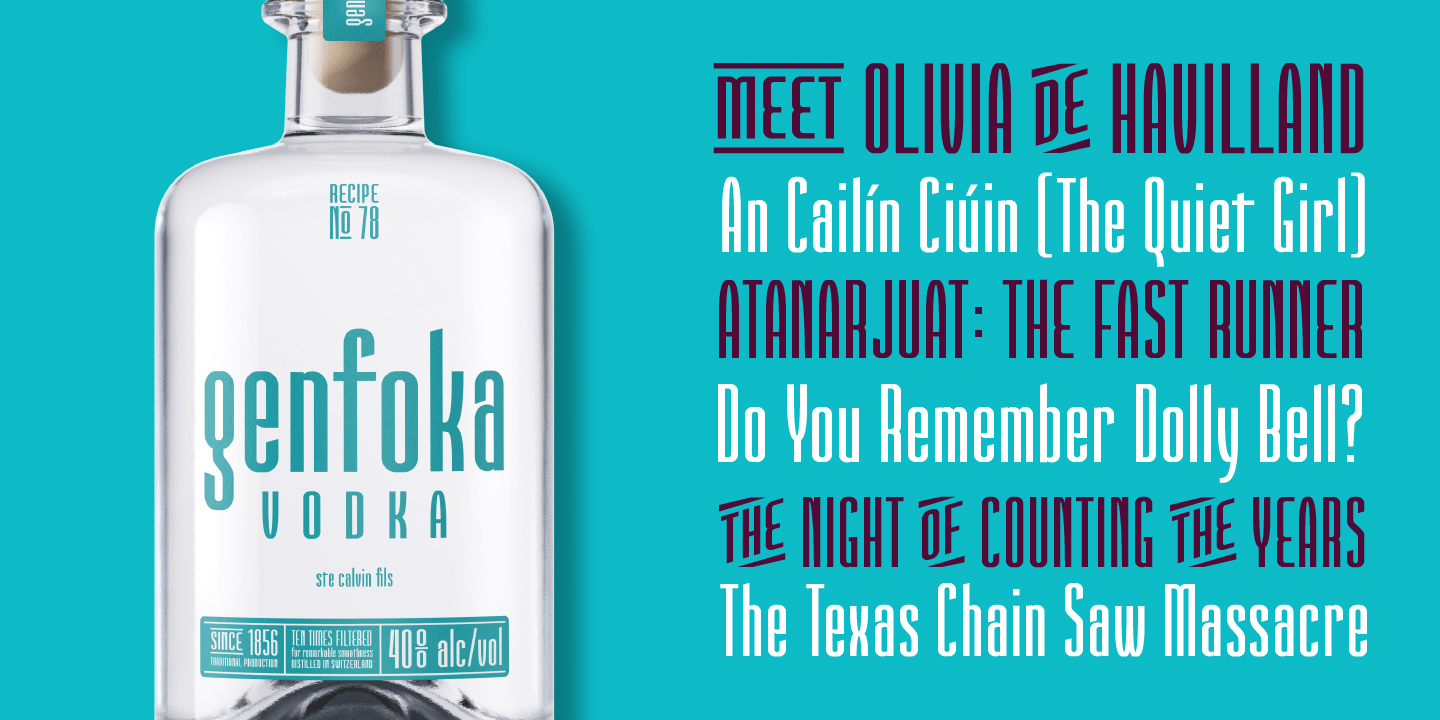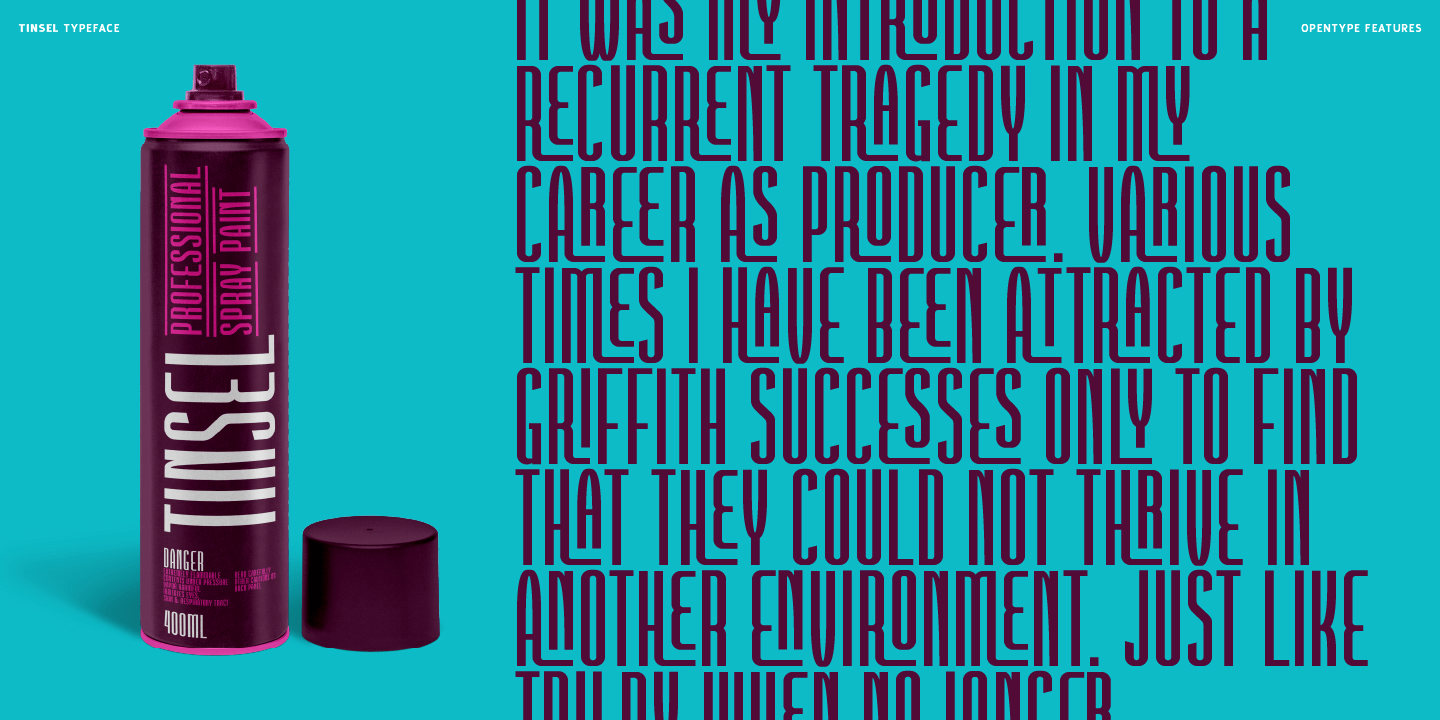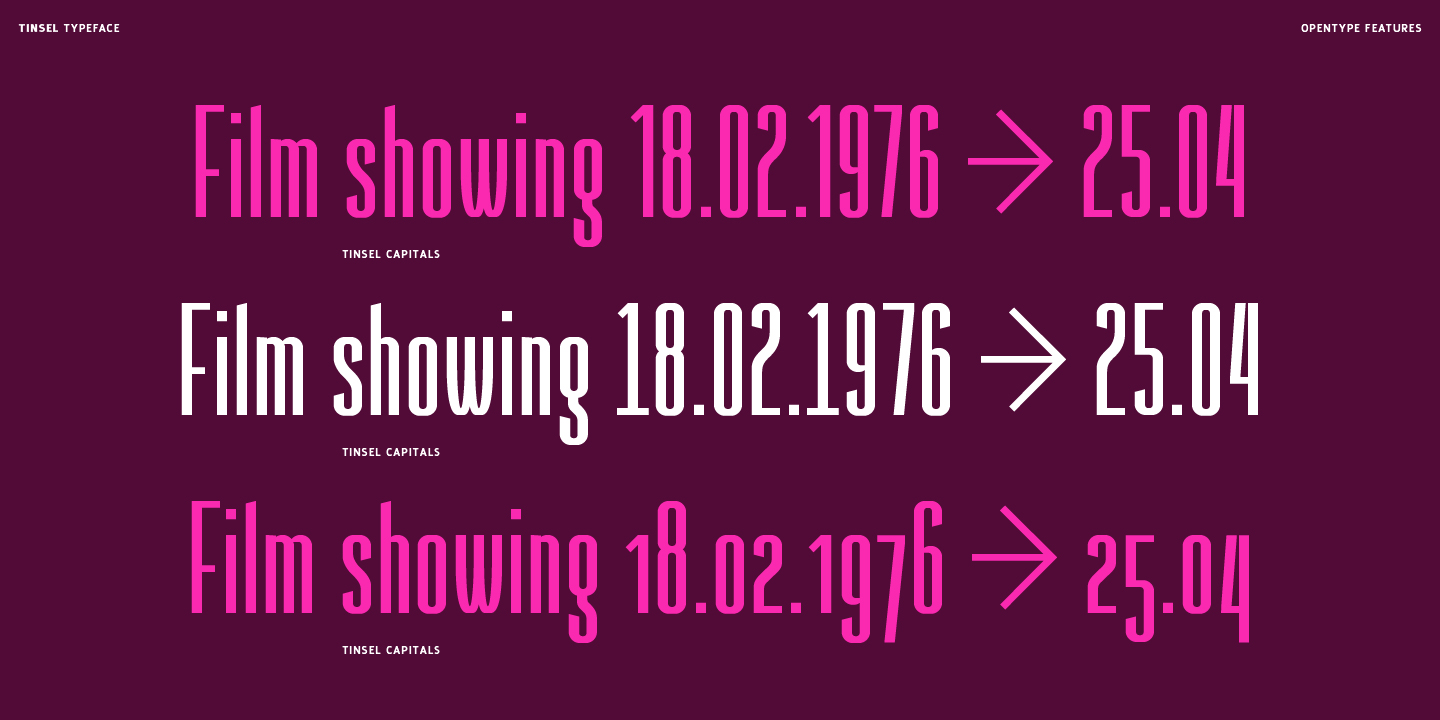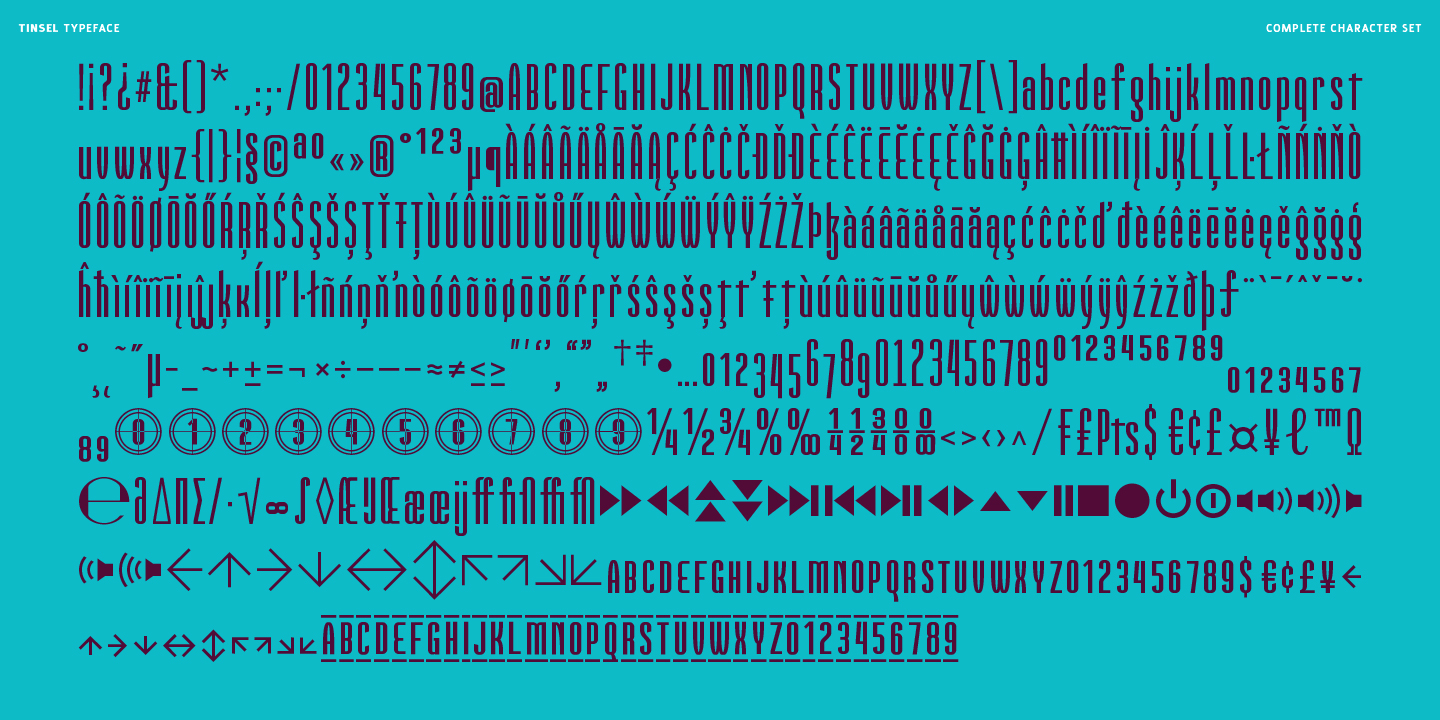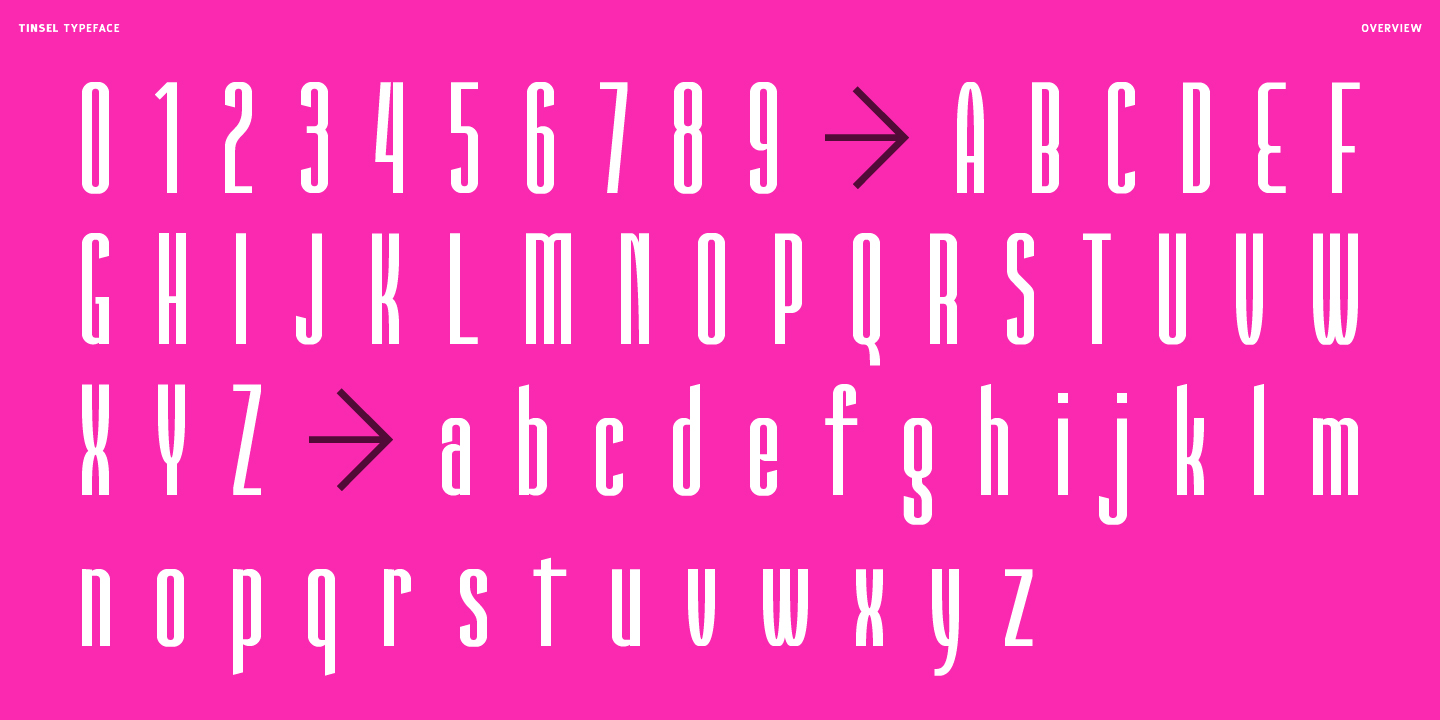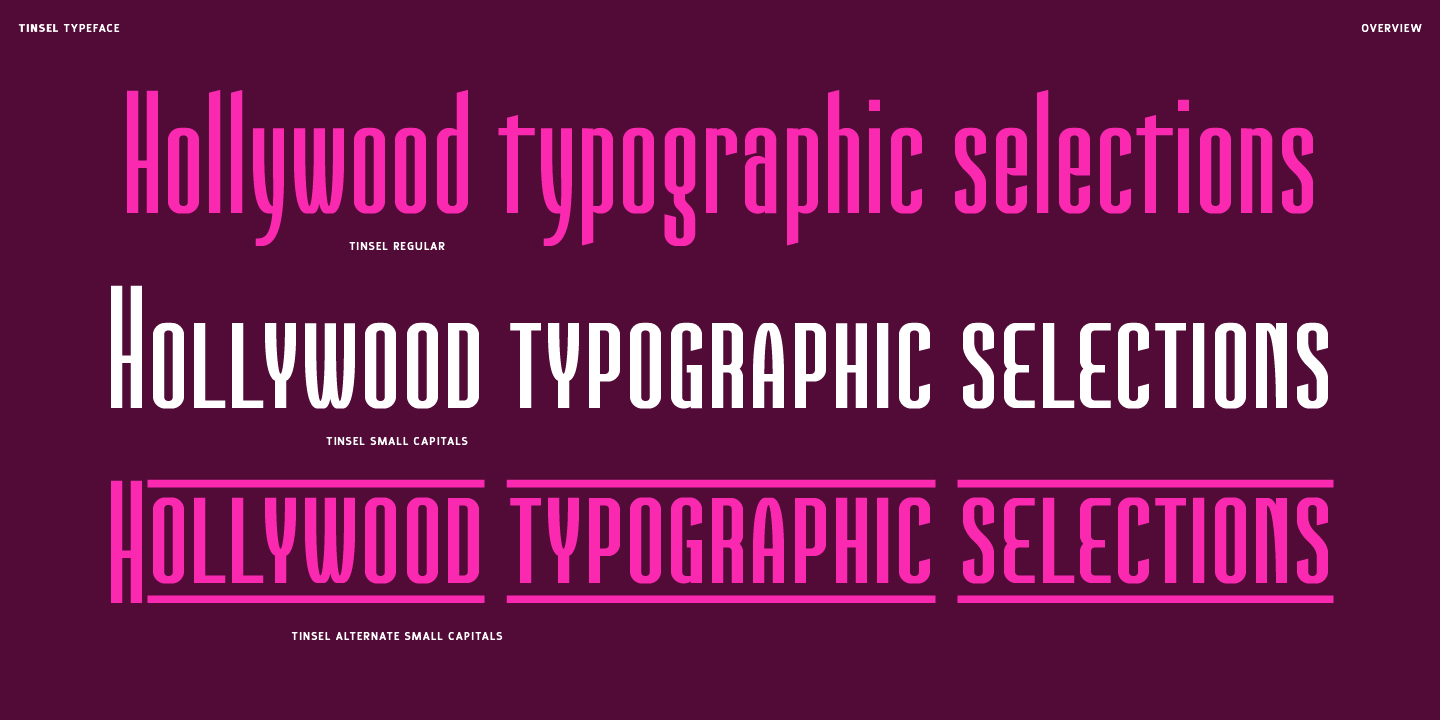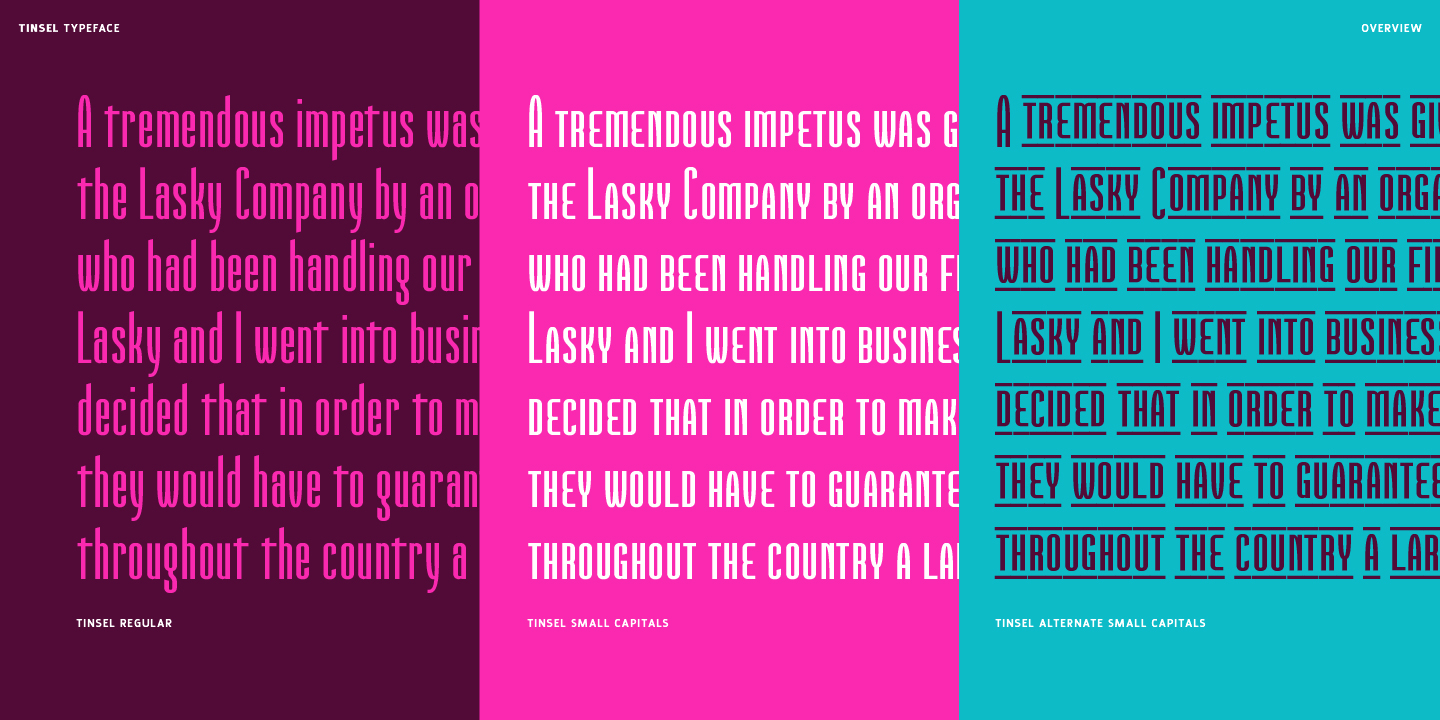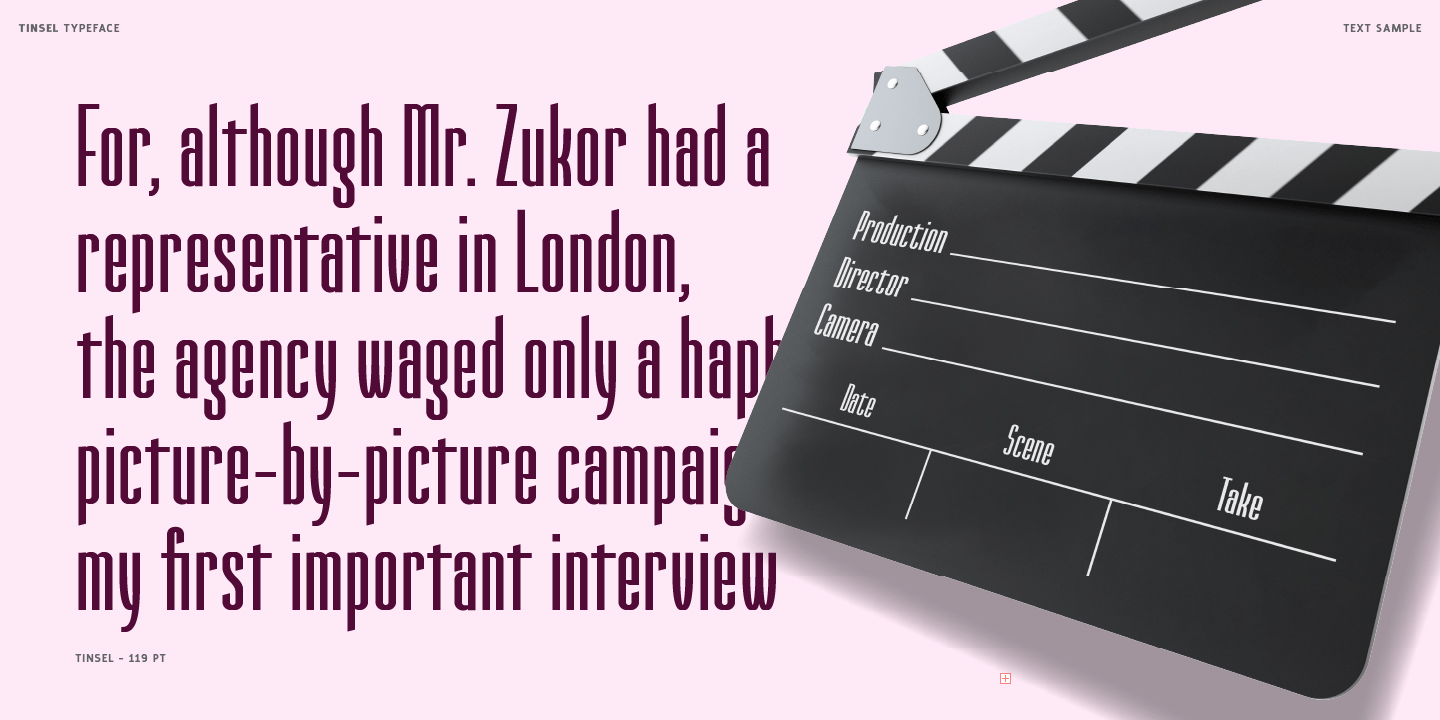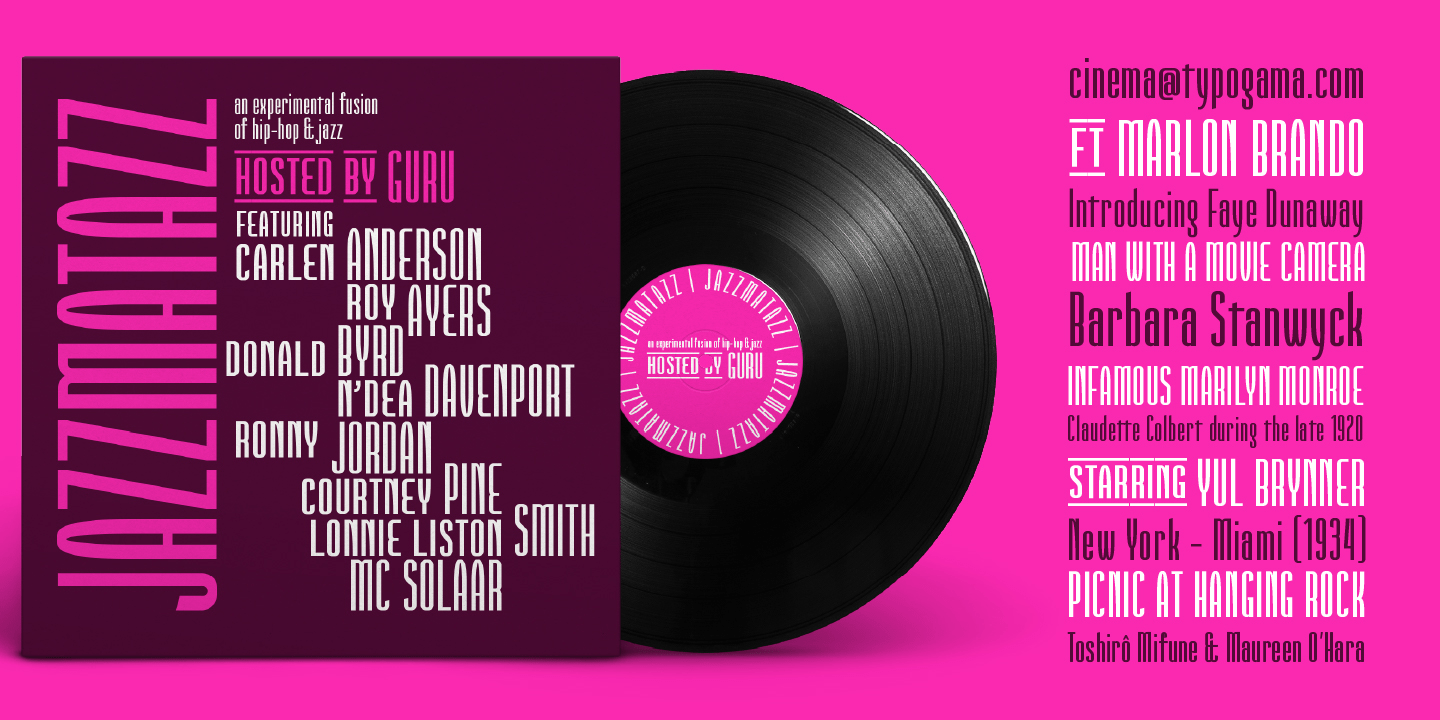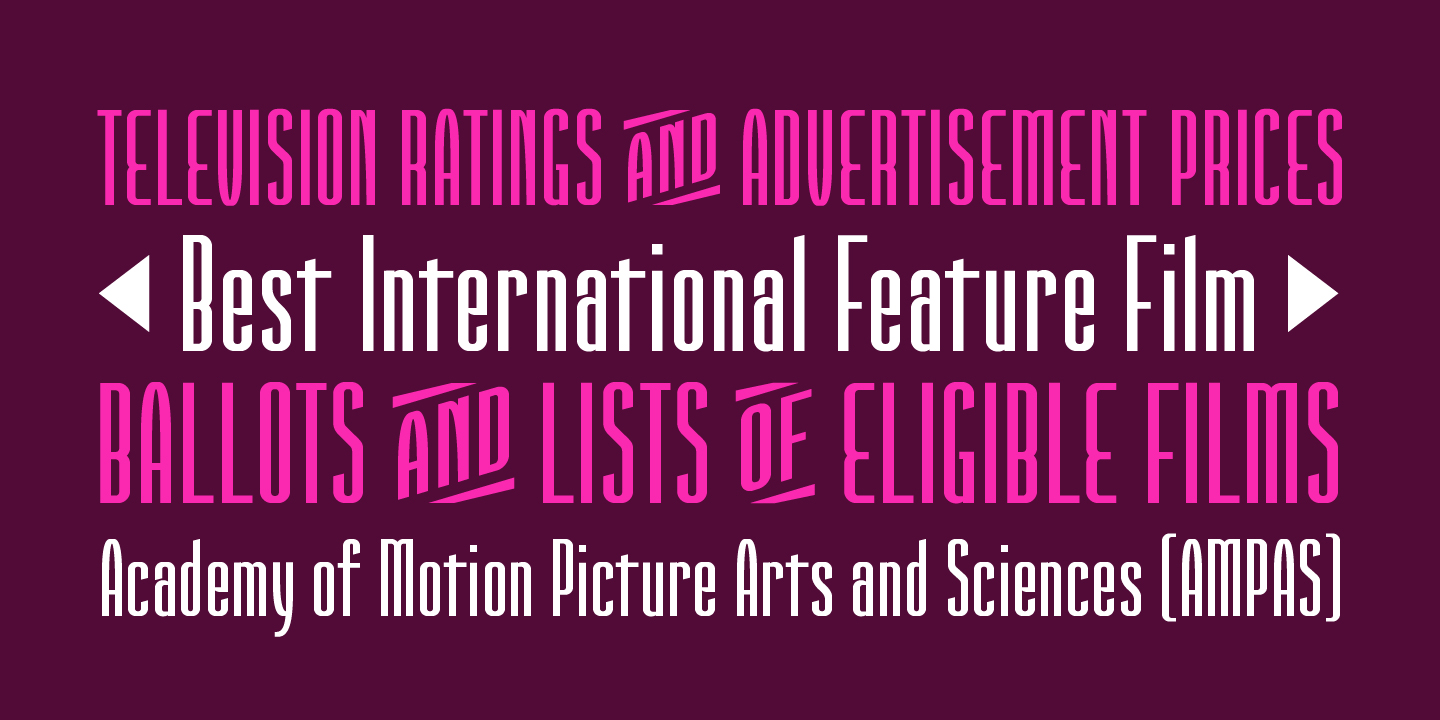
Tinsel
Tinsel is a single weight typeface inspired by the world of movie posters and billing blocks. Despite being a single weight, the typeface actually features three styles of letters: the main forms, a secondary small capital range, and a third alternative small capital style that will allow users to mix and match to create interesting layouts. Packed with a wide range of Opentype features and an expanded Latin character set, it was designed to offer a wide range of solutions to highlight content. With a narrow proportion and clear forms, it was conceived as an economical typeface that remains functional and distinctive.